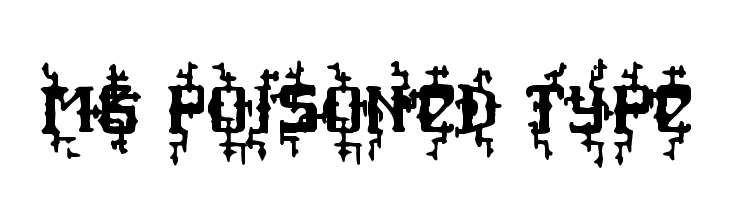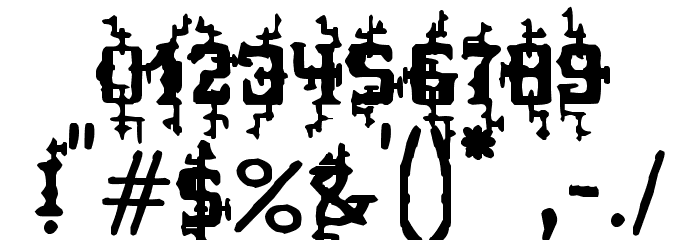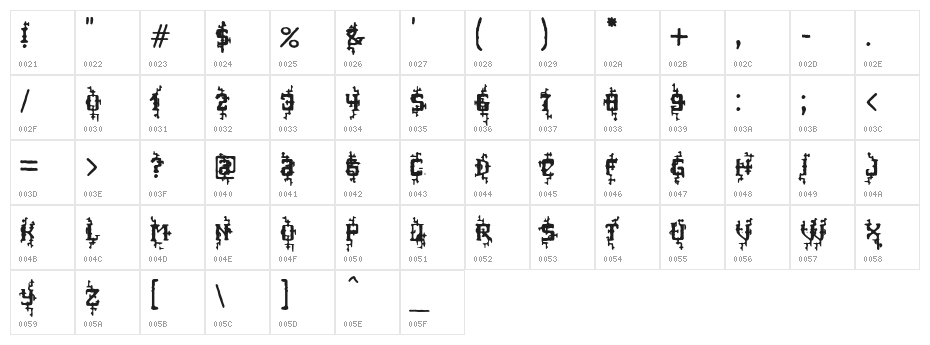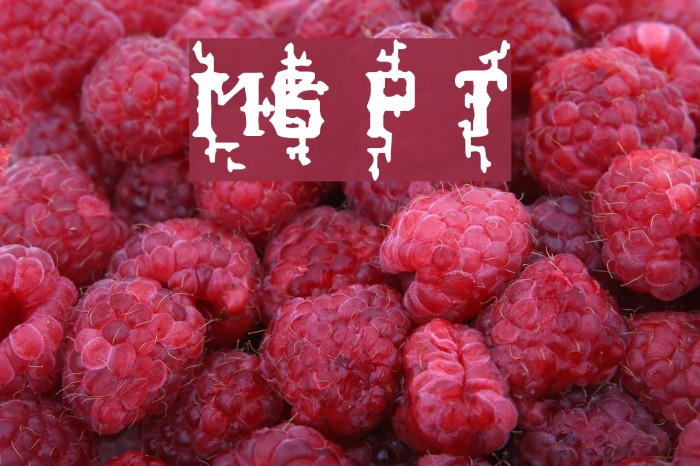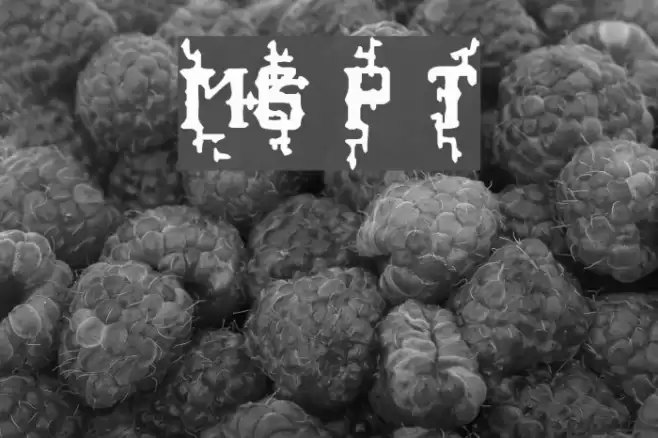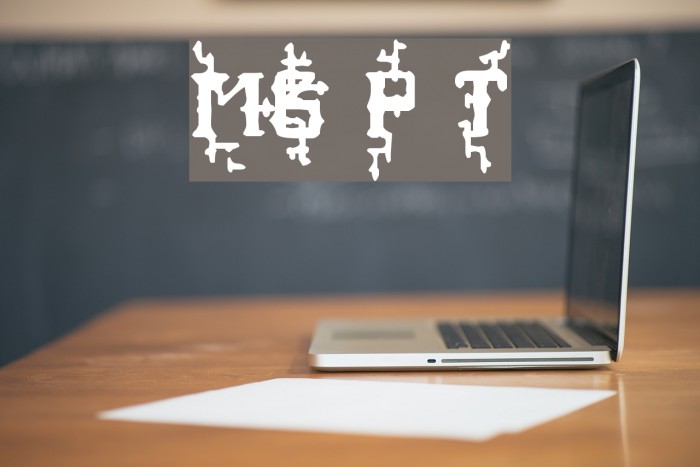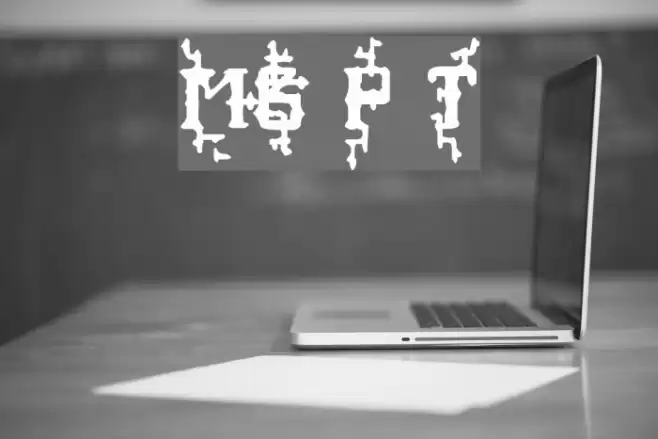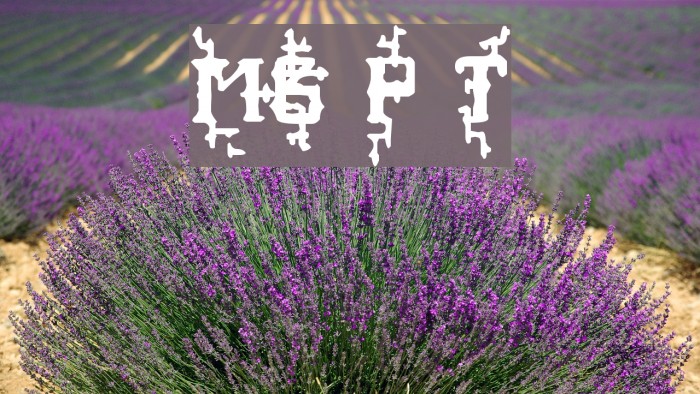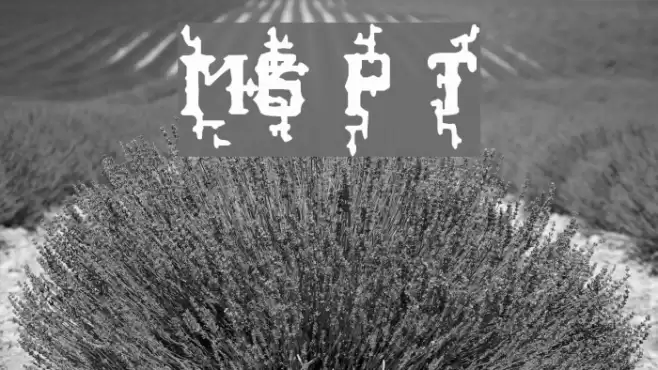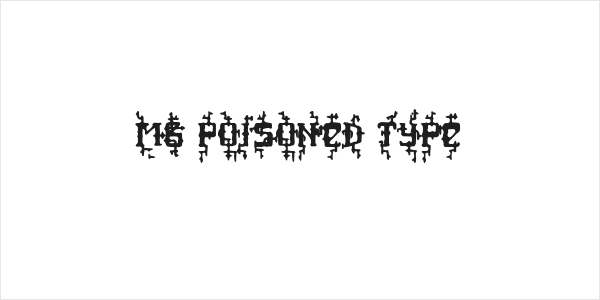
MB Poisoned Type Font
MB Poisoned Type Description
This font features a highly decorative and intricate design, characterized by its unique, jagged edges and complex shapes. Each character is crafted with an artistic flair, resembling abstract, thorny patterns that give it a distinctive, edgy appearance. The bold and striking nature of the font makes it stand out, with each letterform appearing as a piece of art. The characters are consistent in their elaborate style, maintaining a cohesive look throughout the alphabet and special symbols. This font is not only visually captivating but also conveys a sense of mystery and avant-garde aesthetics.
Use CaseLogos, Posters, Artistic projects
Proposed ProjectsIdeal for use in artistic projects, album covers, posters, and any design that requires a bold, avant-garde aesthetic.